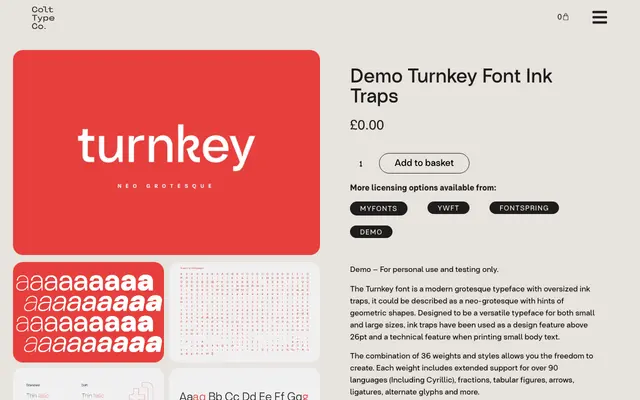
A neo-grotesque with oversized ink traps used as both a technical feature and a visual design element, available in 36 weights and styles.
Turnkey is a modern grotesque with oversized ink traps that function as a genuine design detail at larger sizes and a practical one in small body text. The family spans 36 styles across standard, italic, and soft variants, where the soft cuts introduce slightly rounded forms for a warmer feel. Each weight includes extended Latin and Cyrillic support covering over 90 languages, alongside fractions, tabular figures, arrows, ligatures and alternate glyphs.
Described explicitly as a neo-grotesque with geometric influences; ink traps are used both as a technical and decorative feature, consistent with contemporary neo-grotesque revivals.